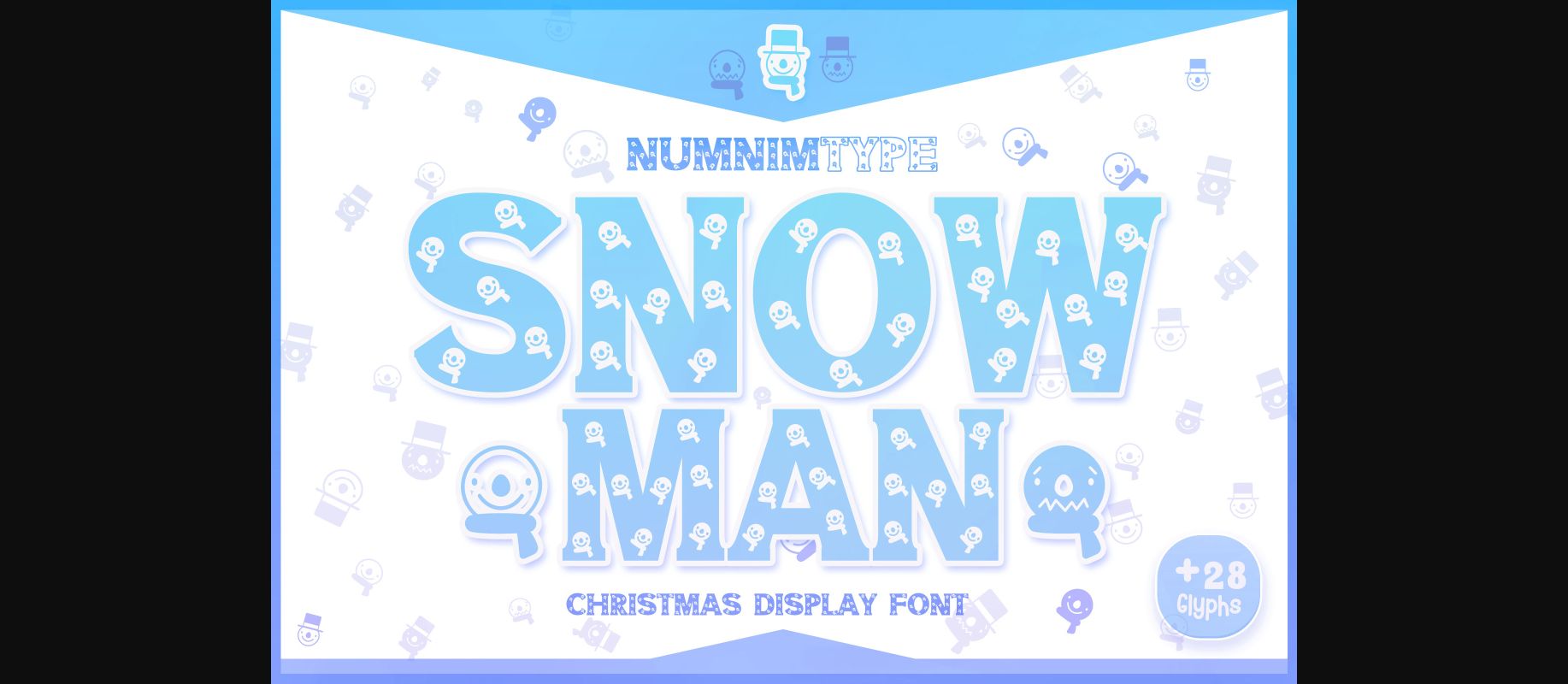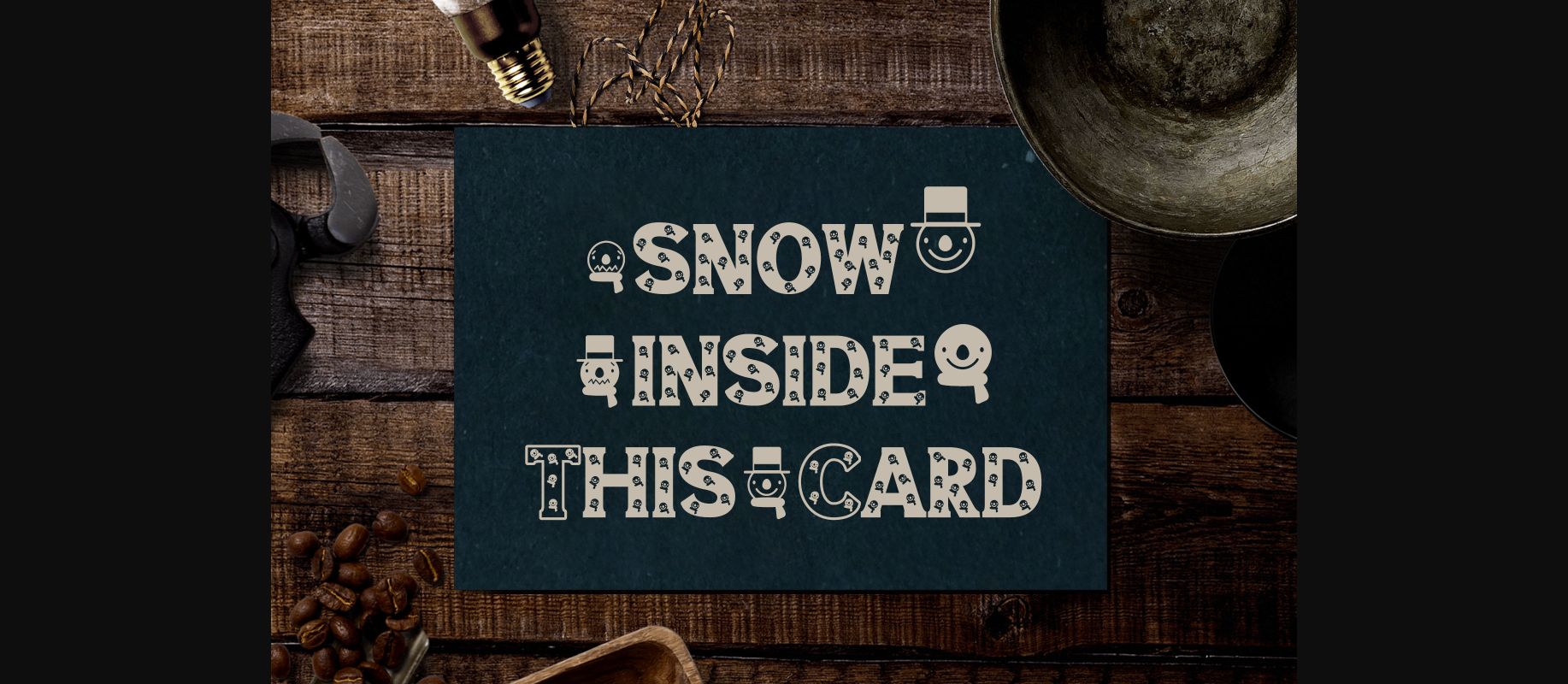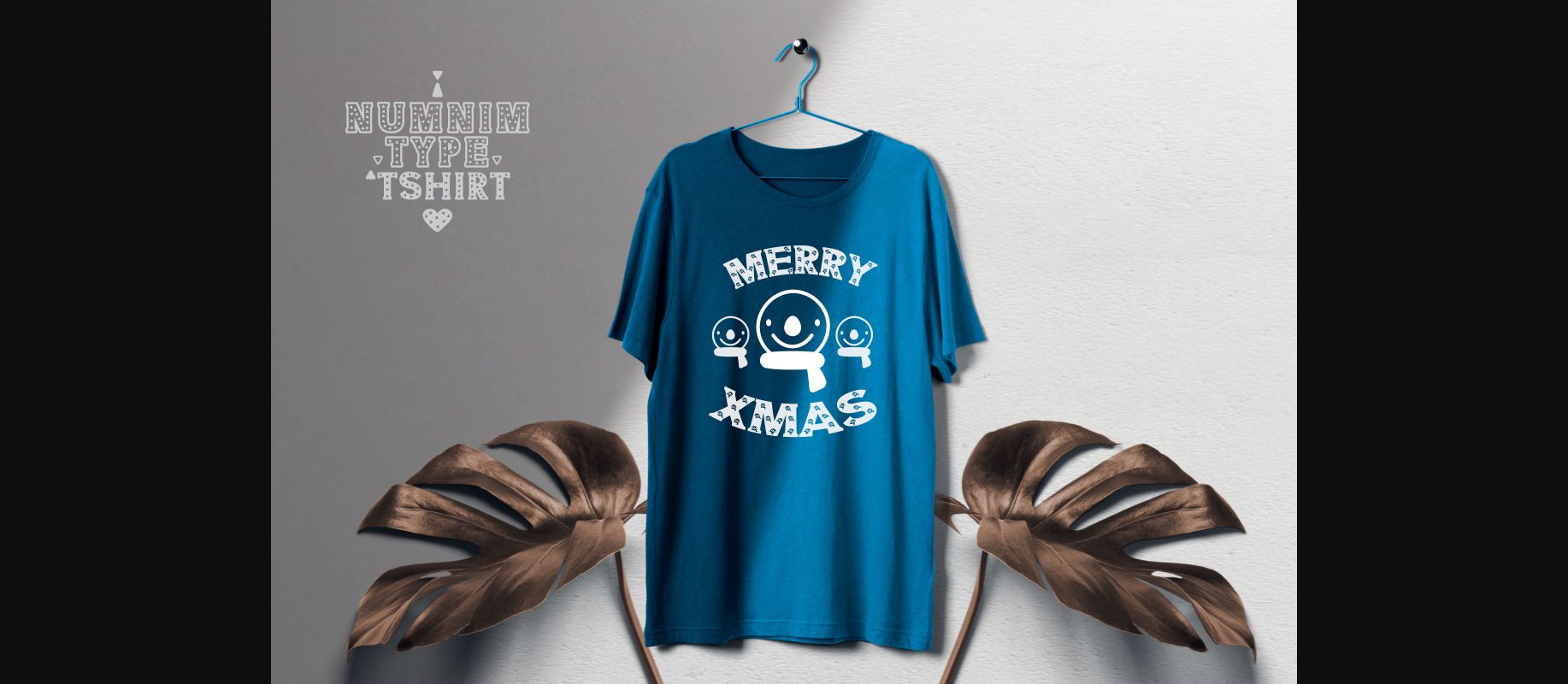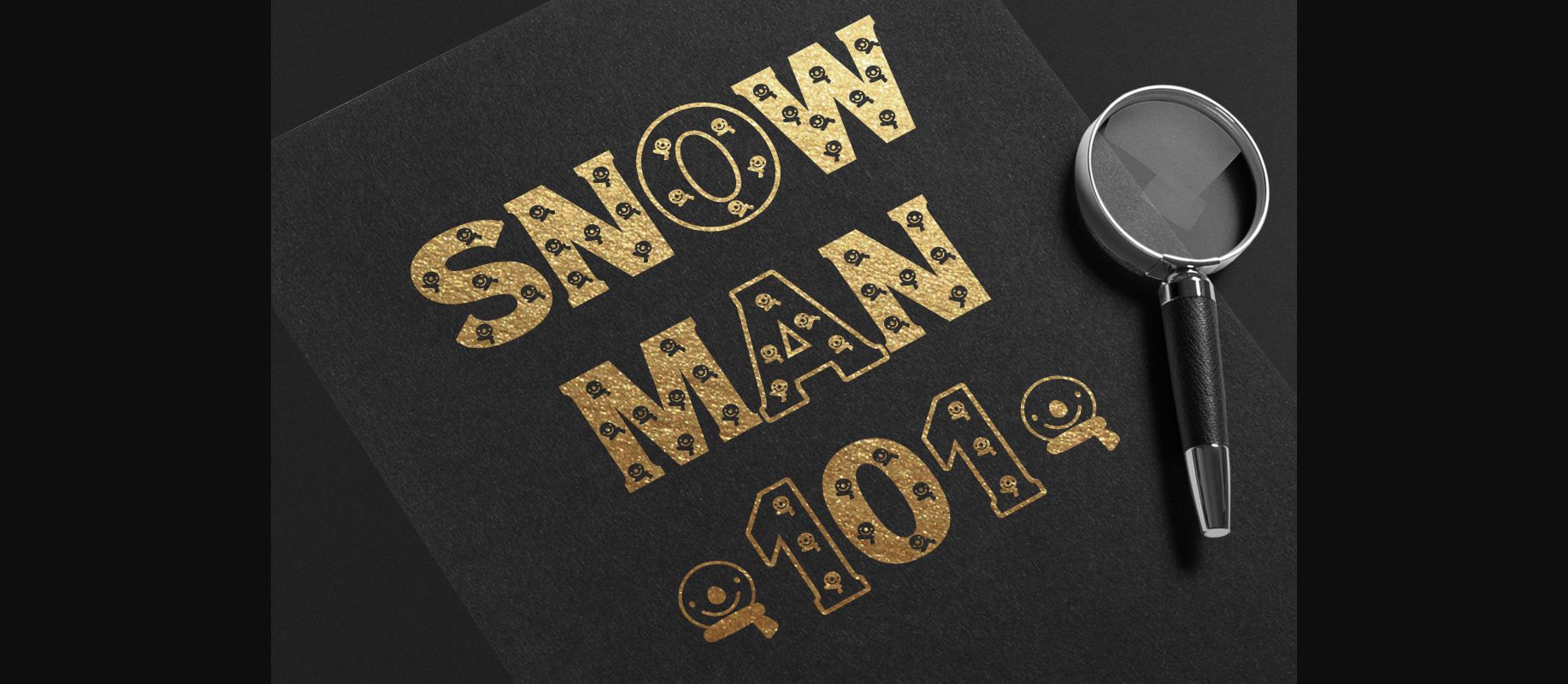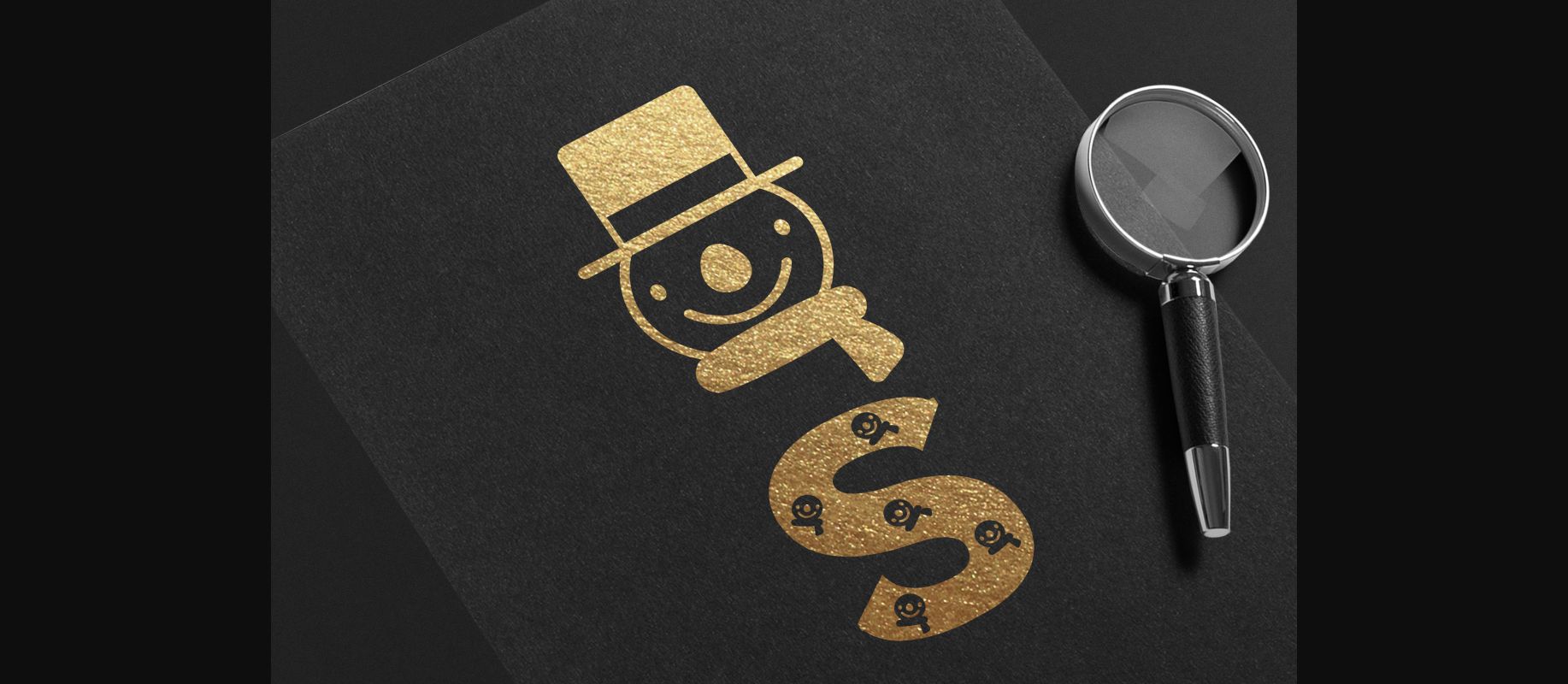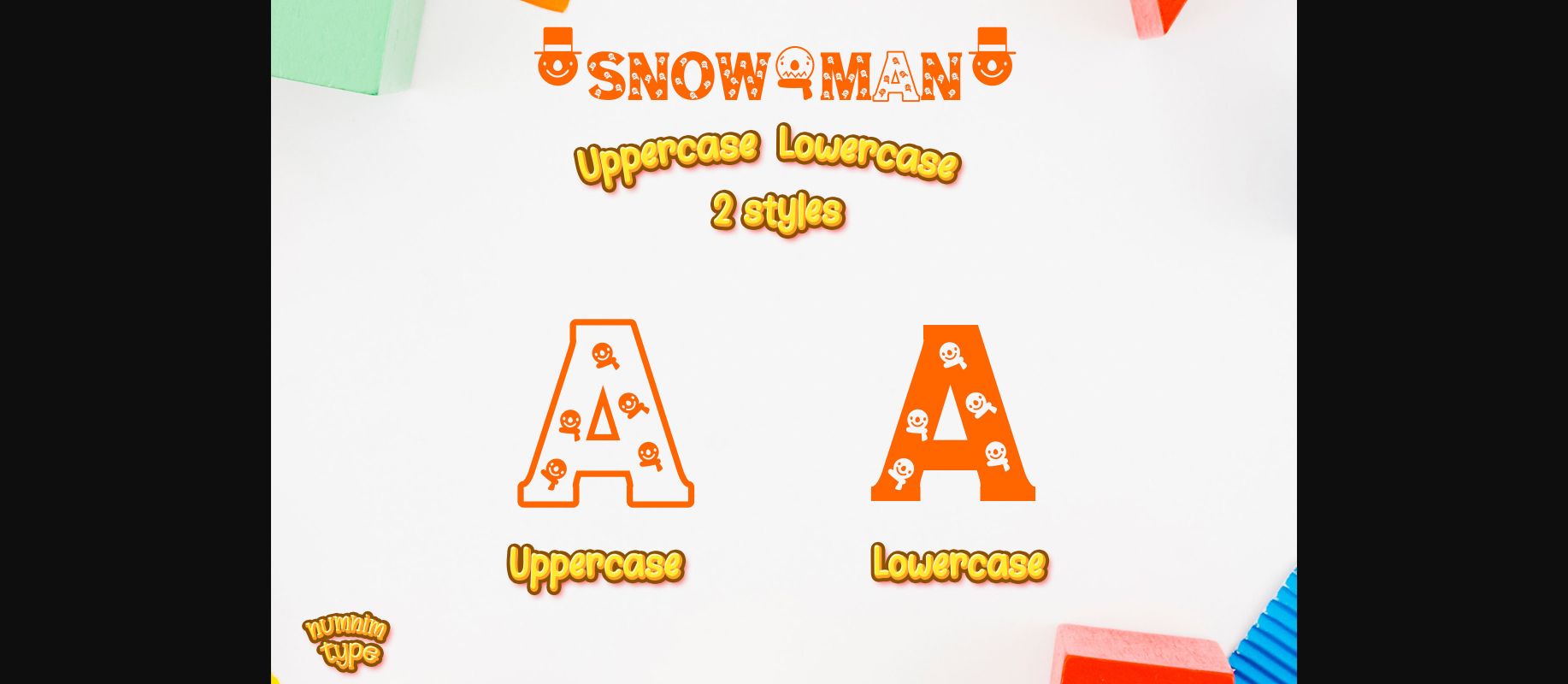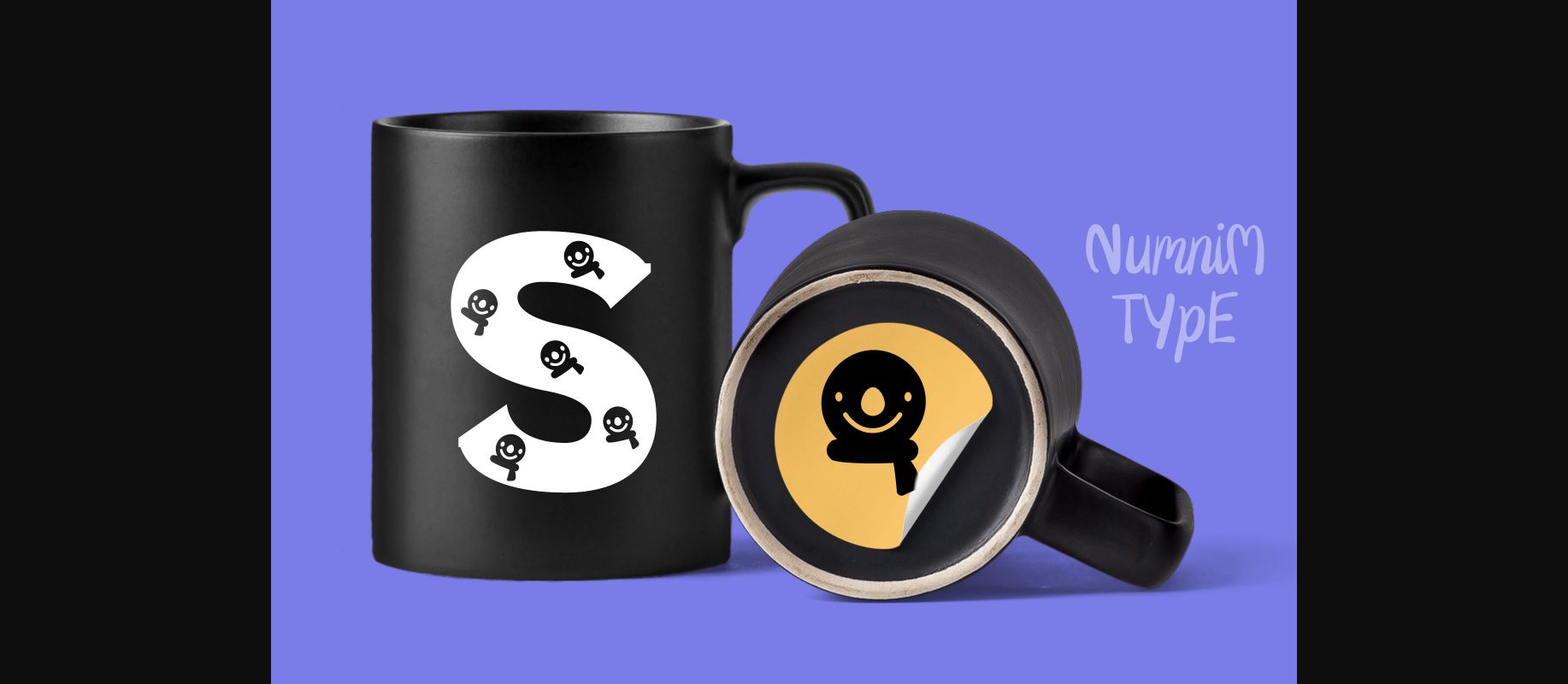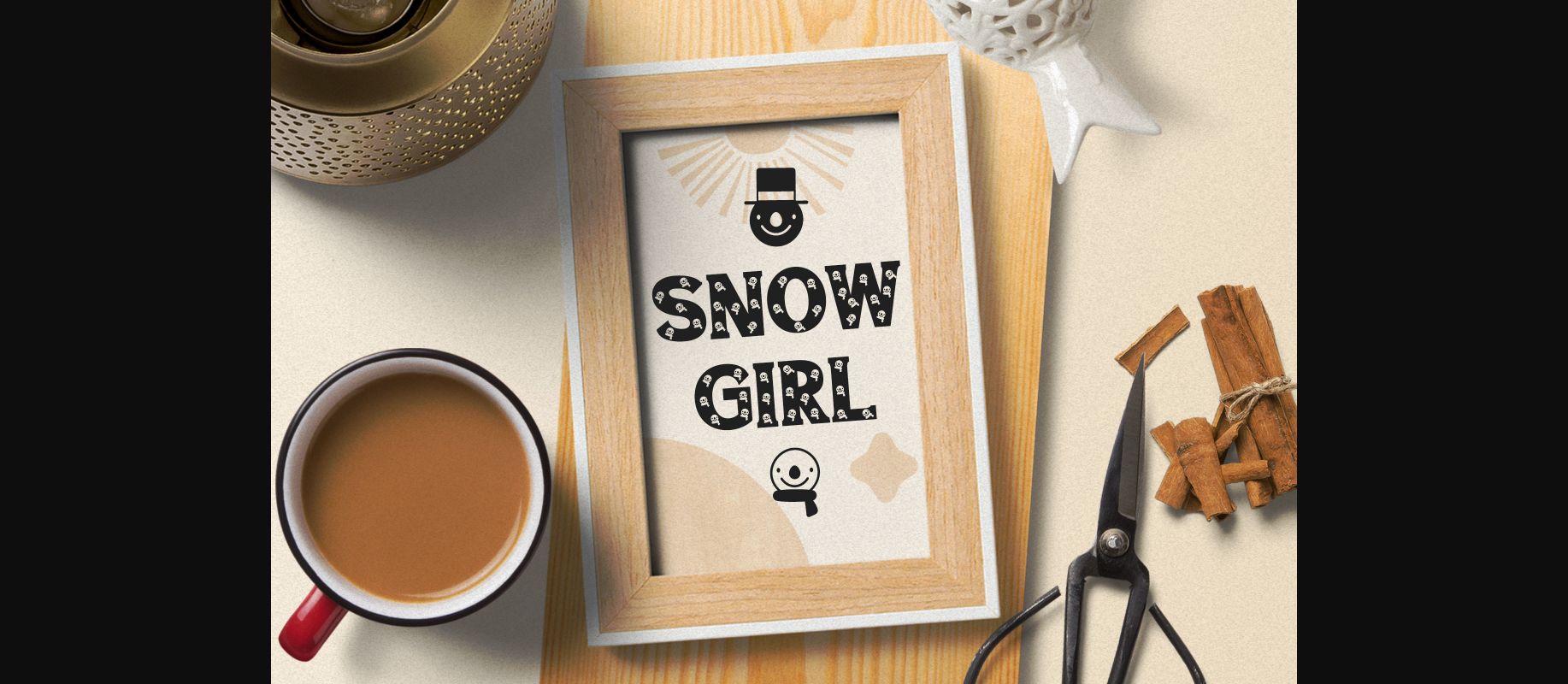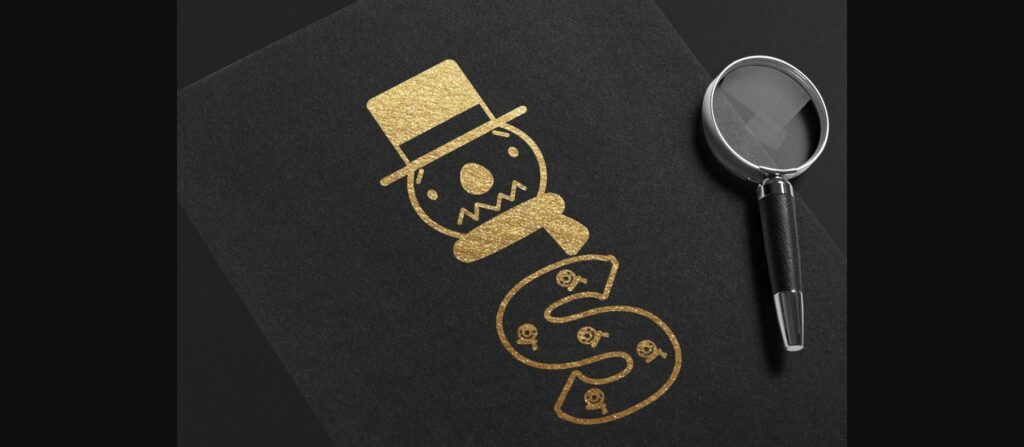
HomeDecorative FontsSnowman Font Decorative Fonts Snowman Font FacebookXPinterestWhatsApp 1 of 11 ... Snowman Font Poster 2... Snowman Font Poster 3... Snowman Font Poster 4... Snowman Font Poster 5... Snowman Font Poster 6... Snowman Font Poster 7... Snowman Font Poster 8... Snowman Font Poster 9... Snowman Font Poster 10... Snowman Font Poster 11... About Snowman Font Snowman is a cool and friendly decorative font. Whether you use it for cartoon-related designs, children’s games, or just any creation that requires a lovely touch, this font will be an amazing choice. DOWNLOAD NOW People also explored Beasley Font Serenity Milkshake Font Habiby – Lovely Heart Script Font Anata Font Handwriting Font Queen Font Alhena Font Valentine Font 269 0 TagsSnowmanSnowman Font Previous articleBrick Boom FontNext articleSkull Kidz Font LEAVE A REPLY Cancel reply Comment: Please enter your comment! Name:* Please enter your name here Email:* You have entered an incorrect email address! Please enter your email address here Website: Save my name, email, and website in this browser for the next time I comment. Personal Use Free Archeology Personal Use Free Read more about this font Short Message Personal Use Free Read more about this font Namskow Personal Use Free Read more about this font Abberancy Personal Use Free Read more about this font BLOG Free Fonts Risk: Why Free Fonts Can Be Dangerous for Designers Free Fonts Risk: Why Free Fonts Can Be Dangerous for Designers Using free fonts is a common practice in web and graphic design. However, the... The 10 Best Handwriting Fonts to Add Personality to Your Designs How to Cut Any Font on Cricut: Convert a Font to SVG (Free) How to Install and Use Fonts on Windows, macOS, and Web Projects